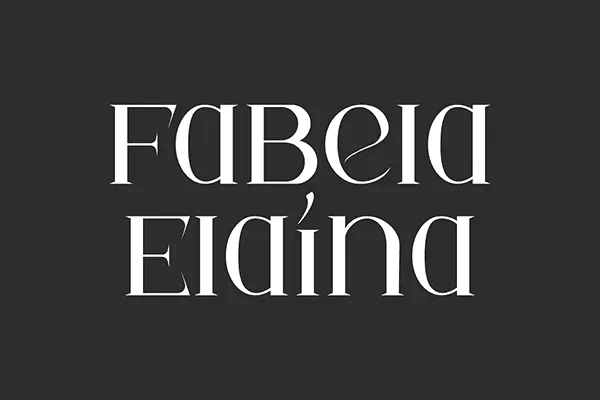
Fabela Elaina – Display Font
Fabela Elaina – Display Font is a classic serif display font that combines elegance and uniqueness in every stroke. With a distinctive design and luxurious aesthetics, this font will be perfect for various projects, such as advertising, blog, branding, gift box, invitation, label, layout design, quotes, stationery, template design need, website, and more.